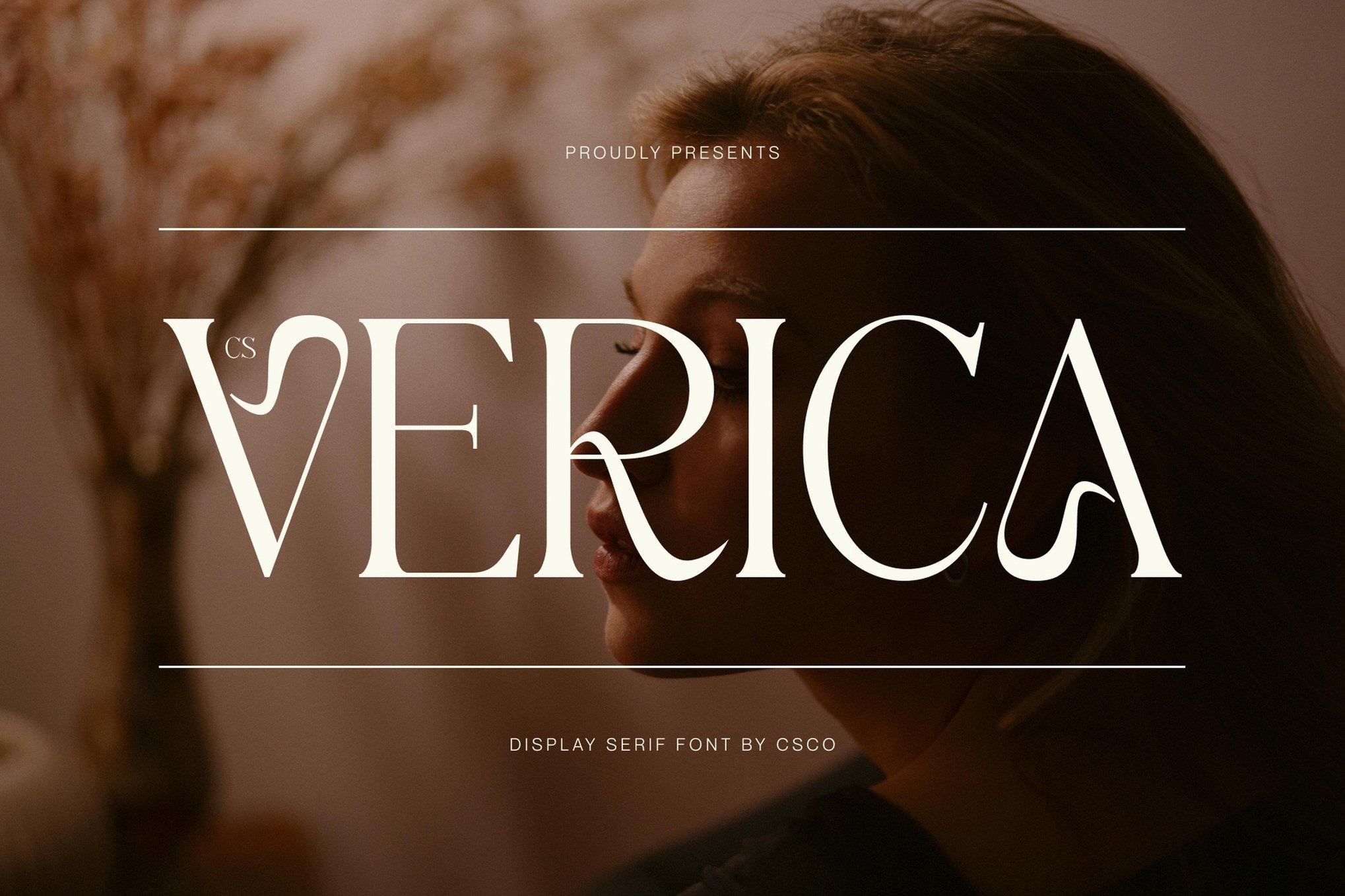
Verica Font
Verica Font brings a balanced structure and contemporary look, making it suitable for both digital and print design. CS Verica – Elegant Serif with Modern Luxury Appeal Elegant Serif with Refined Style This is an elegant serif font that embodies a refined sense of style and timeless luxury. Its graceful letterforms are crafted to deliver sophistication and balance, creating typography that feels polished and visually captivating. The design blends classic serif foundations with modern sensibility, resulting in a font that feels both fresh and enduring.
Modern Design with Fresh Character With its clean structure and carefully shaped curves, this font offers a modern interpretation of traditional serif typography. The refined details enhance readability while maintaining a stylish, contemporary personality. This balance gives the font a confident and upscale presence suitable for premium visual communication.
Luxury Feel with Versatile Elegance This font communicates luxury through subtle elegance rather than excessive ornamentation. Its refined proportions allow it to adapt easily across various creative contexts, delivering a high-end tone that feels approachable and versatile. The font works beautifully in both minimalist and expressive layouts.
Perfect for Logos, Titles, and Headlines Ideal for logos, titles, headlines, and a wide range of creative projects, this font shines in branding and editorial applications. Whether used in premium branding, fashion campaigns, or modern editorial layouts, it brings a fresh and luxurious typographic presence that elevates every design.